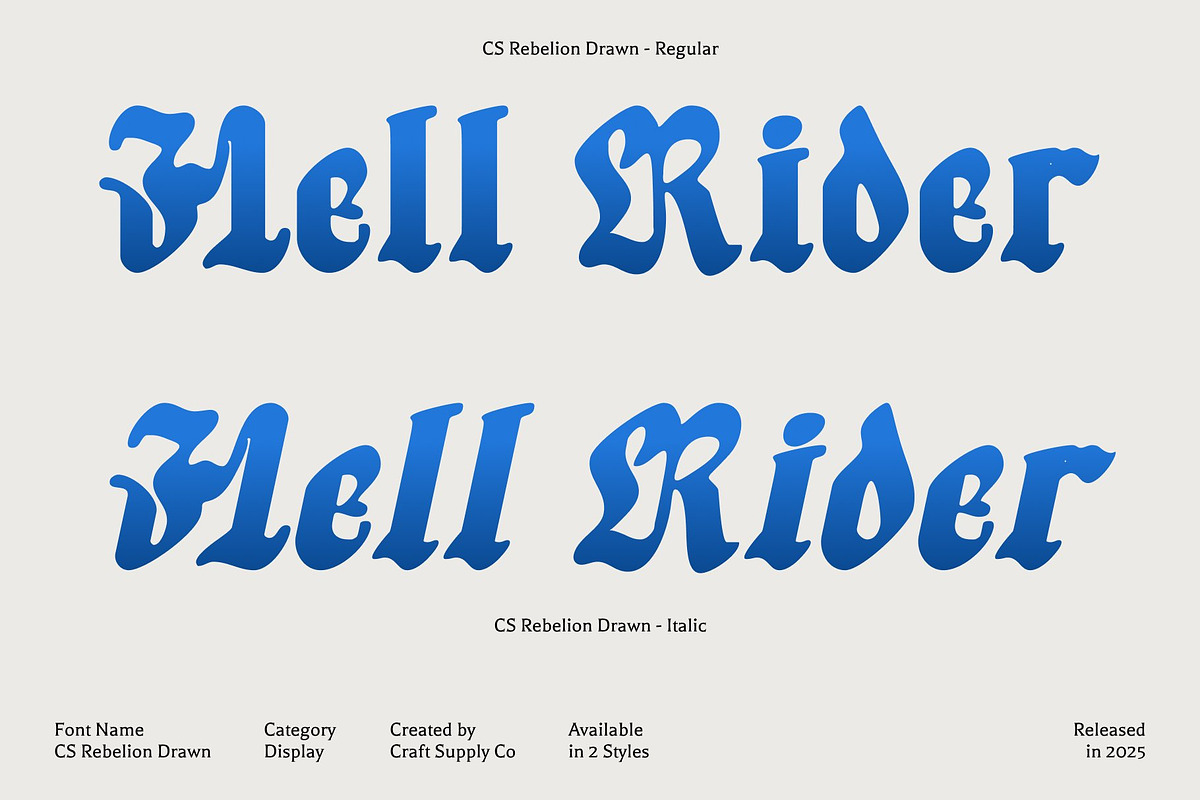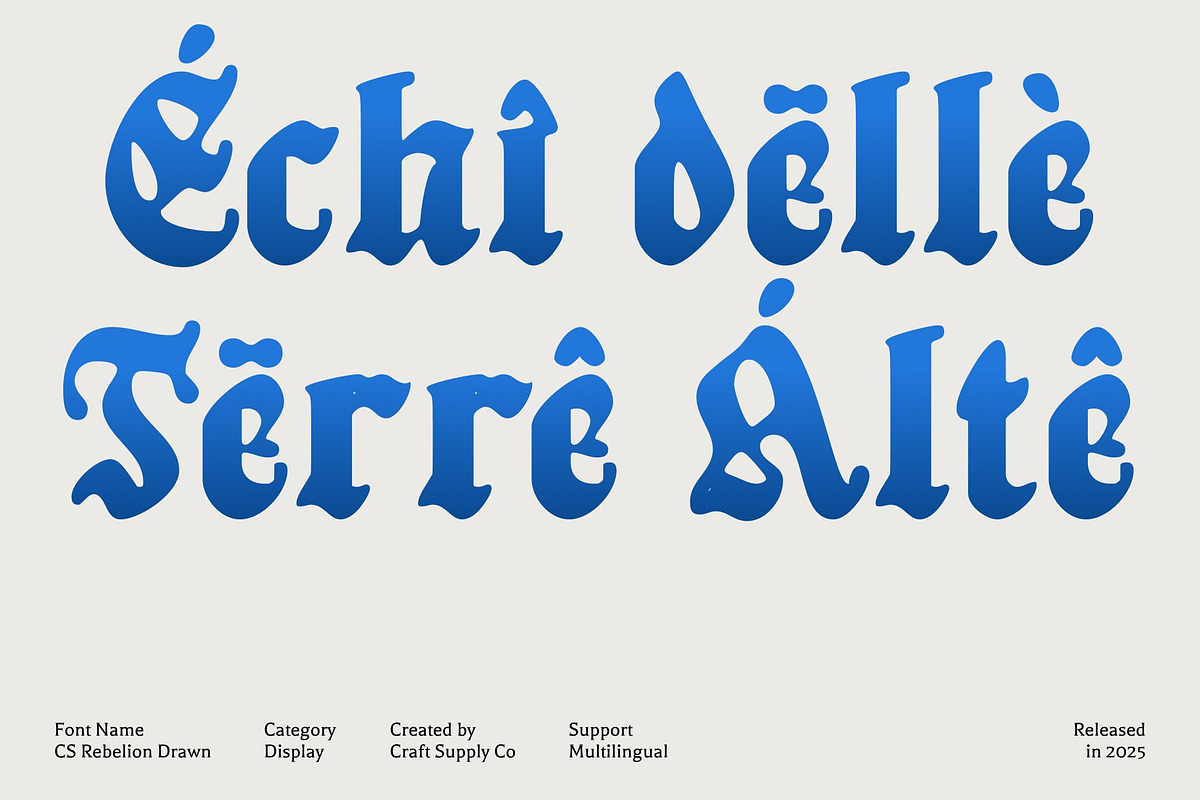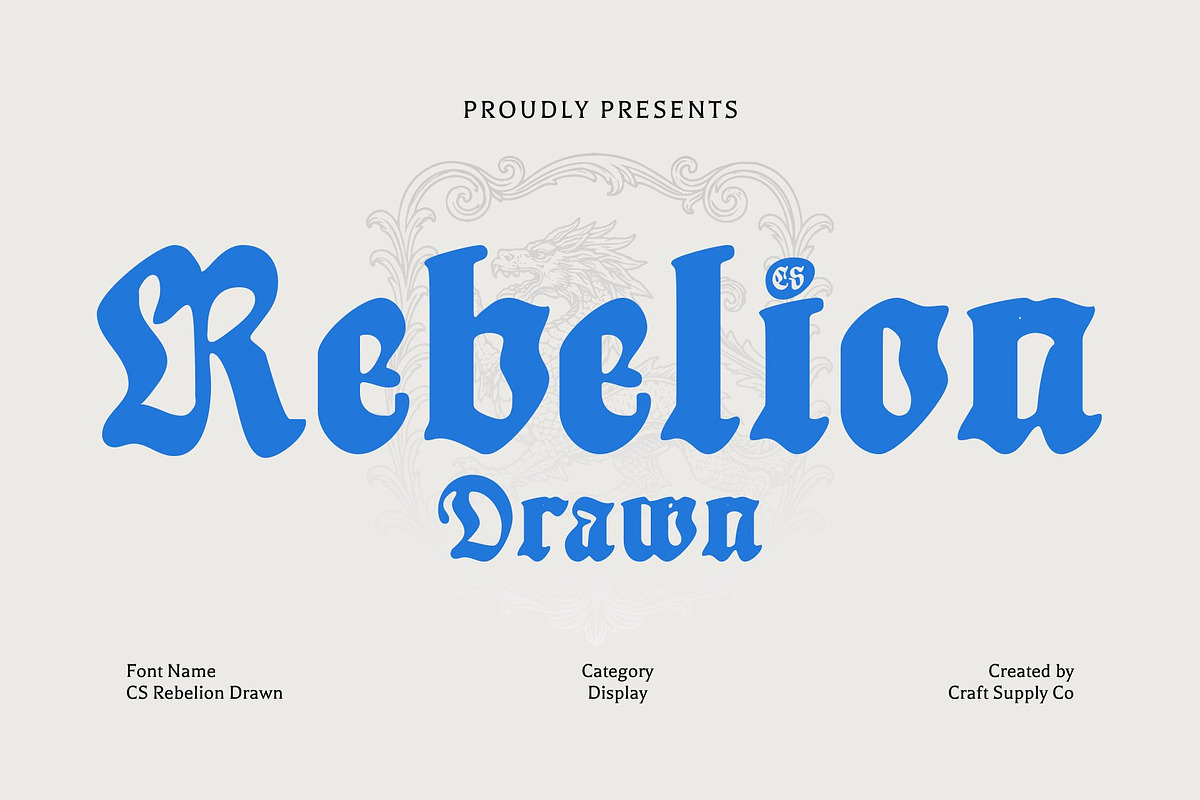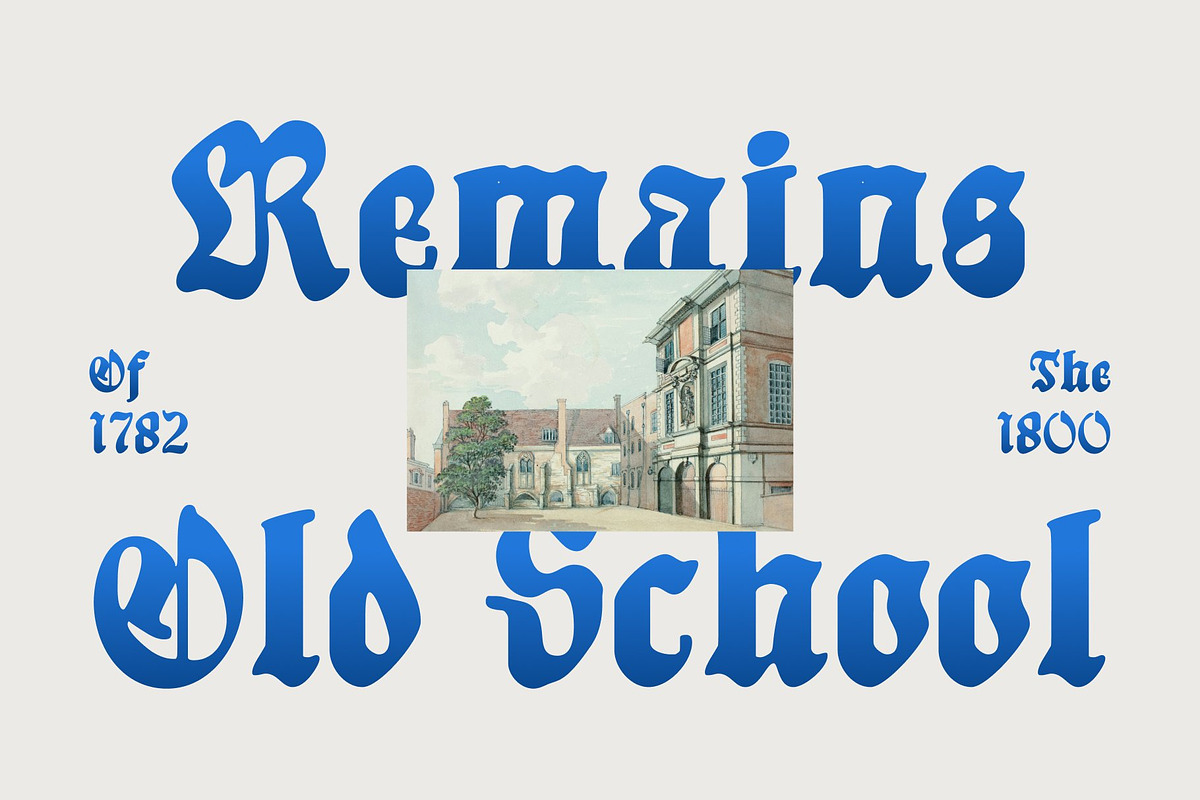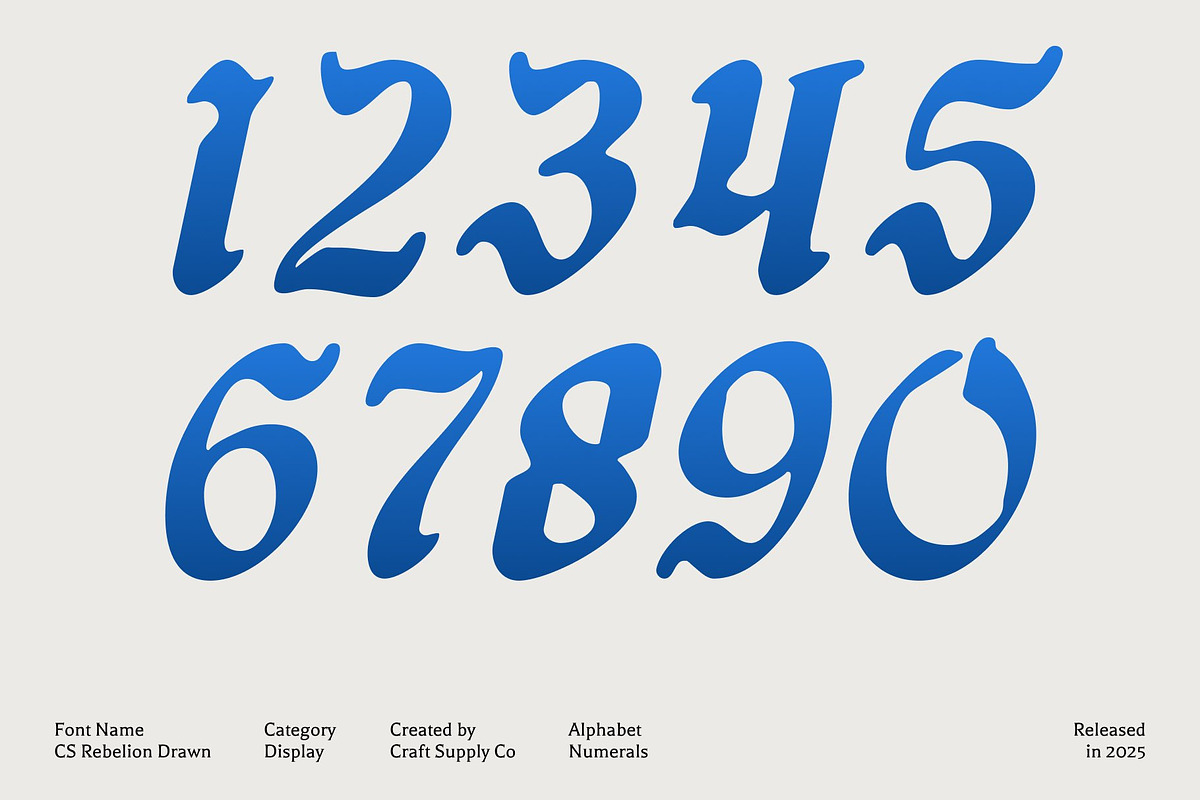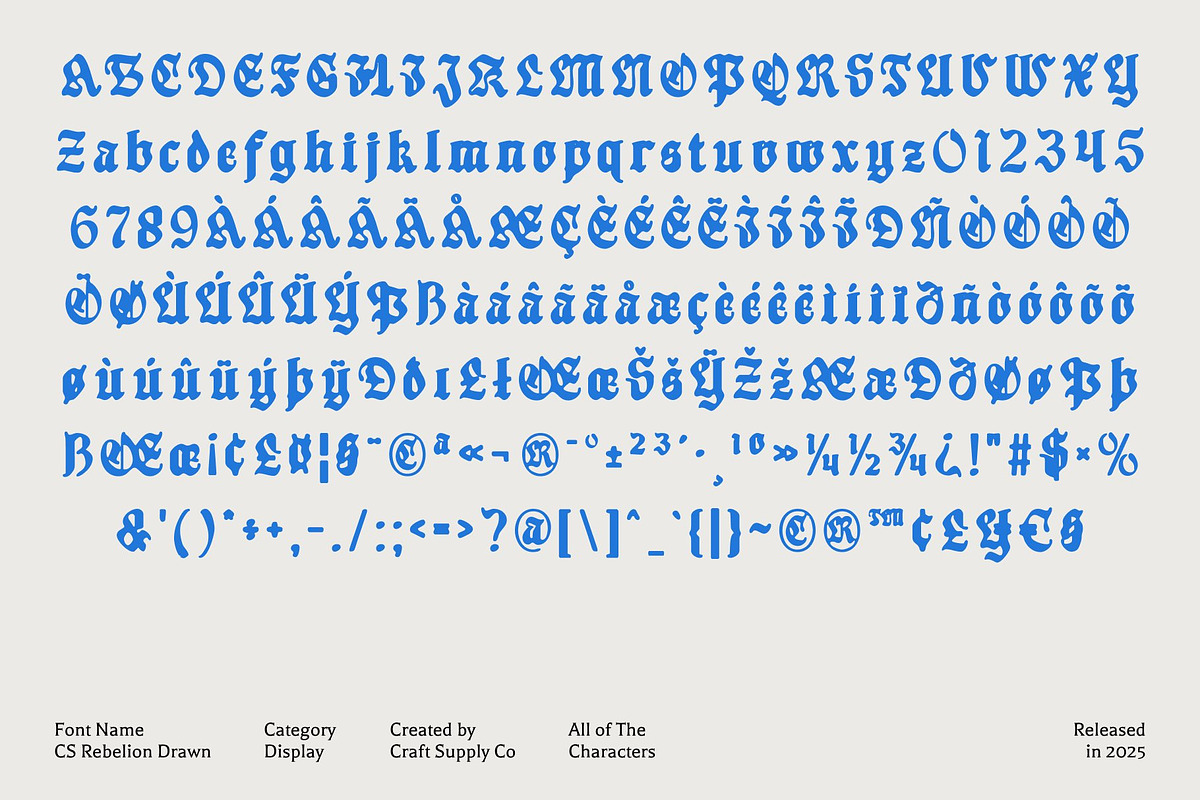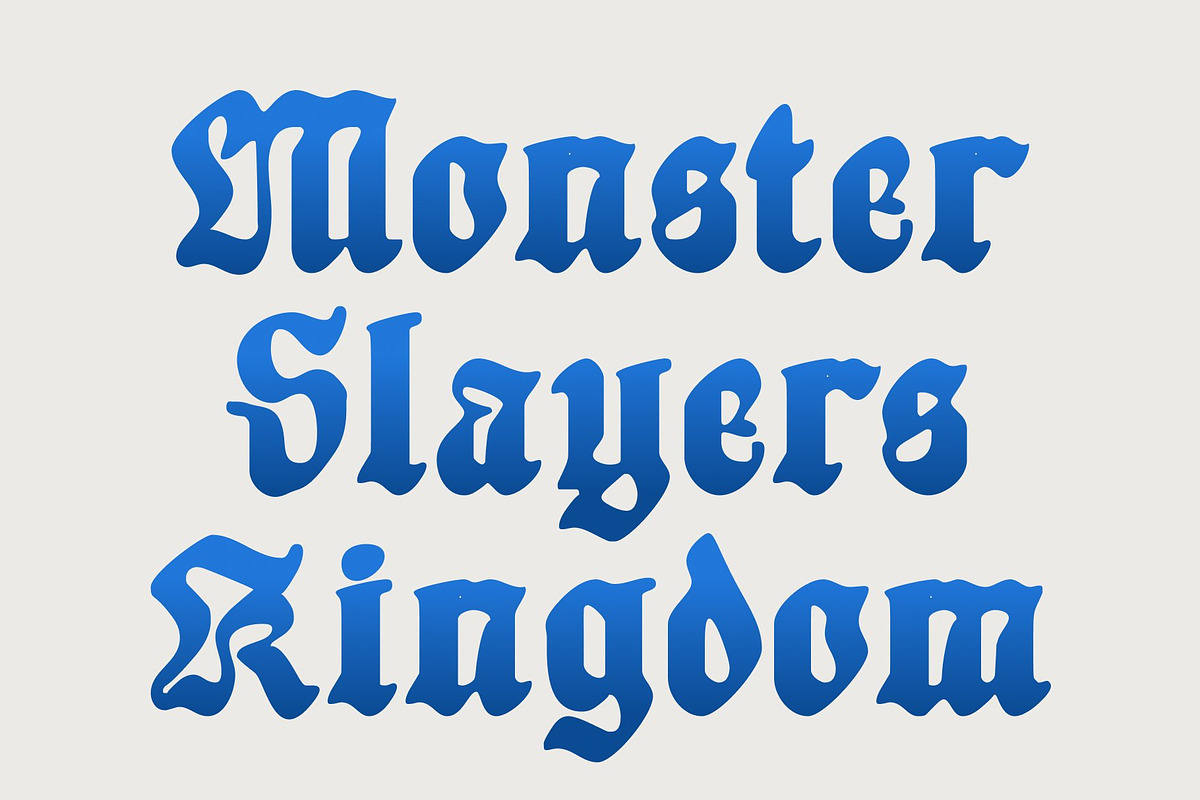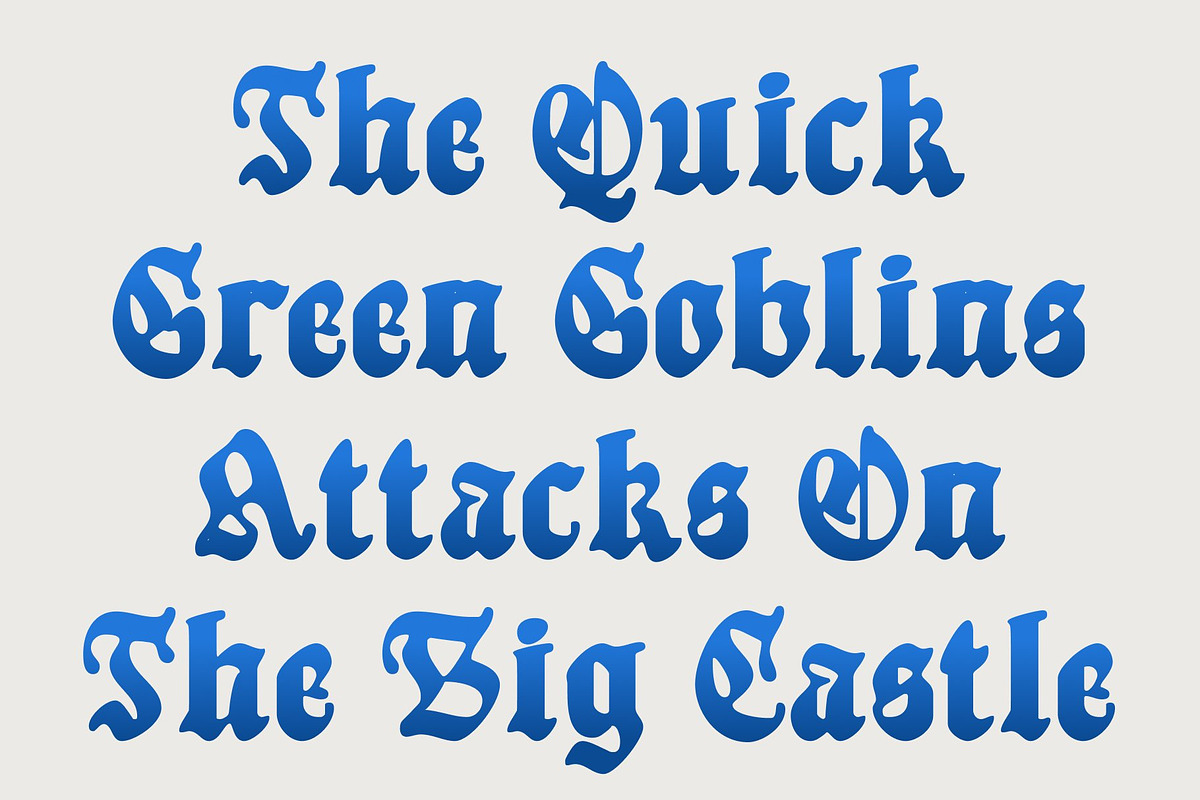
CS Rebelion Drawn
CS Rebelion Drawn – Blackletter Display Font
Bold, Historic, and Commanding This is a blackletter-style display font that exudes drama, tradition, and authority. Inspired by medieval calligraphy and classic gothic script, its sharp, fractured strokes are enhanced with a hand-drawn texture, adding raw expression and artistic depth to its historic form.
Gothic Heritage with Modern Edge Rooted in traditional blackletter aesthetics, brings old-world character into a bold, contemporary context. Its edgy execution and expressive drawn details give the font a modern intensity, making it perfect for designs that demand a fierce, rebellious, and unforgettable presence.
Decorative, Dramatic, and Visually Dominant This font is not meant to be subtle. Dramatic angles, ornate forms, and textured strokes create a powerful visual rhythm that feels intense and expressive. This font works exceptionally well for headlines, titles, merchandise, tattoos, music posters, and event graphics where impact and attitude matter most.
For Designs That Demand Authority With its heritage-inspired structure and commanding silhouette, this font is ideal for projects that seek a strong gothic identity. It delivers cultural richness, emotional depth, and visual power celebrating blackletter tradition through a bold, hand-drawn display style built for modern creative expression.